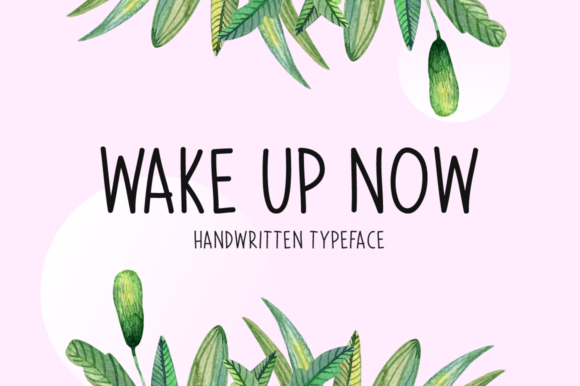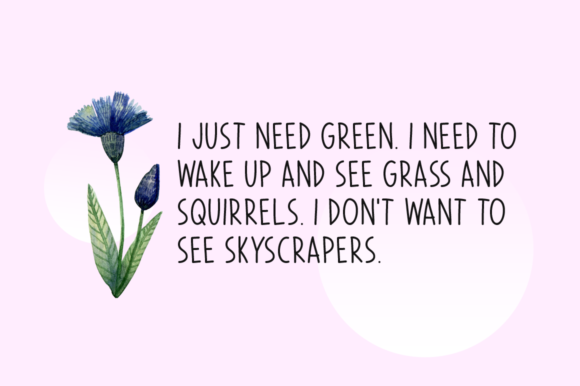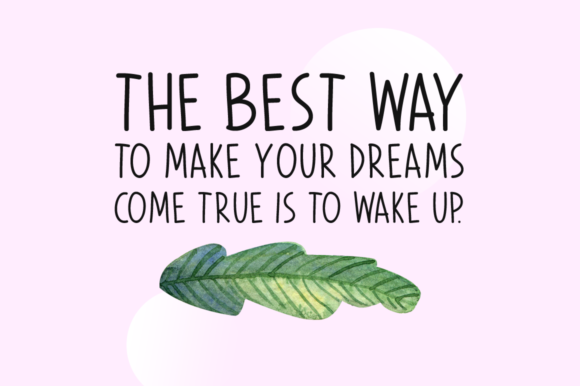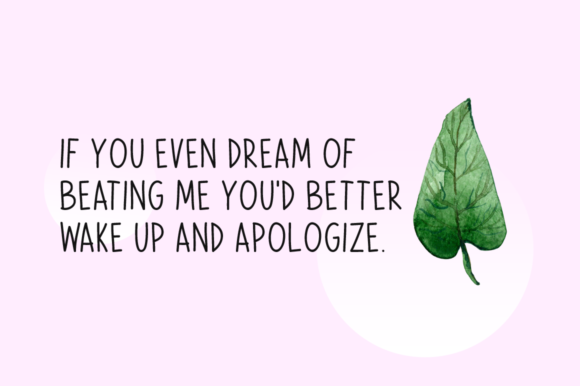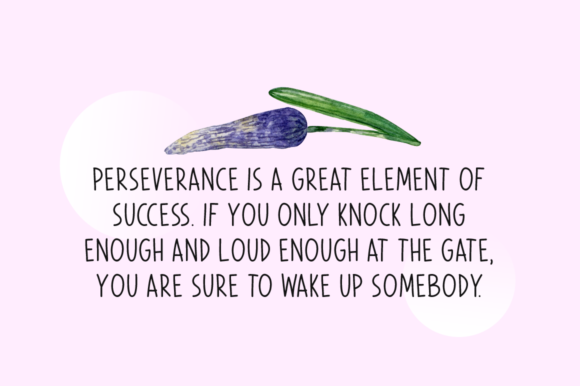
About Wake Up Now Font
Wake Up Now is a cute and simple lettered handwritten font that can be used for all chalkboard quotes or teaching material! Its authentic look will add a personal and realistic feel to your designs.